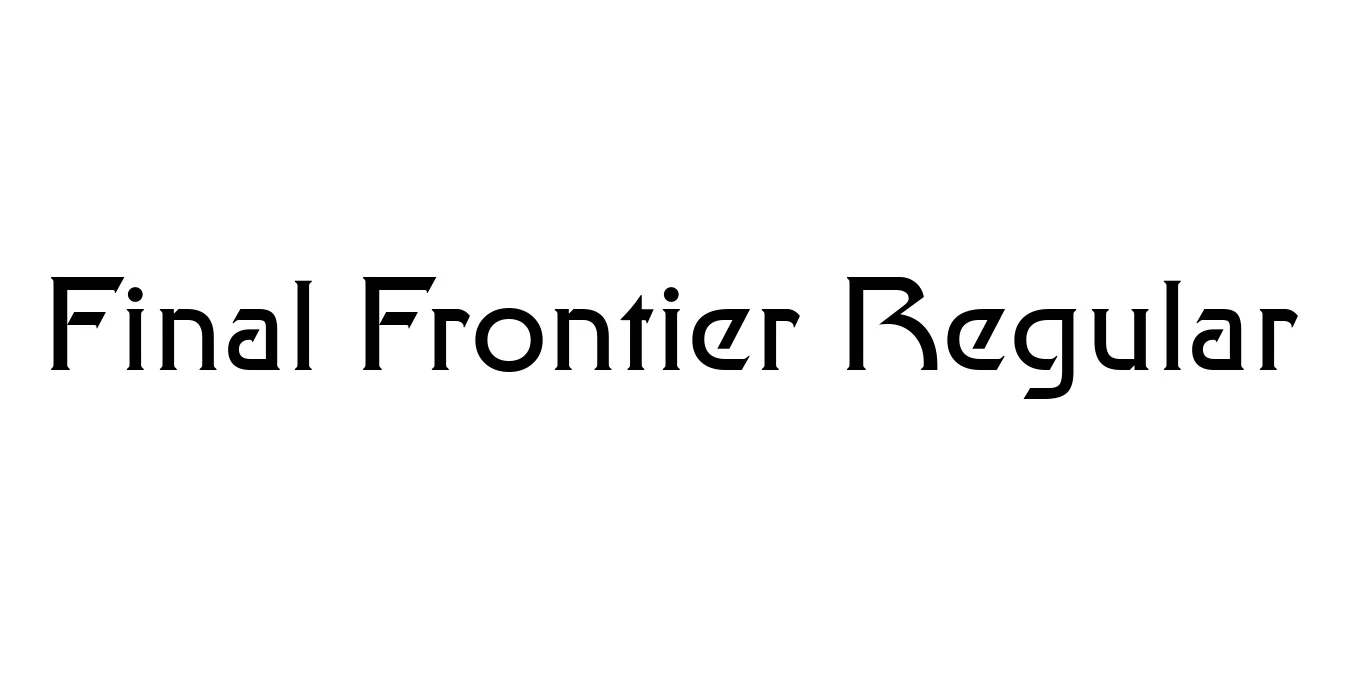
Final Frontier Regular
Designed by Allen R. Walden
Final Frontier is a iconic display typeface heavily inspired by the titling used in the Star Trek franchise, specifically the The Next Generation era. Created by Allen R. Walden, the font captures a distinct futuristic, wide-set aesthetic that immediately evokes themes of space exploration and high-tech engineering. Its sharp angles and consistent stroke weights make it a quintessential choice for science fiction enthusiasts and digital creators looking for a galactic feel.
Since its emergence in the early digital font era, Final Frontier has been a staple for fan-made projects, convention posters, and themed graphics. Because of its bold and geometric nature, it is highly legible in large formats, making it perfect for cinematic titles and gaming interfaces. While primarily associated with 1990s sci-fi, it remains a popular choice for any modern project requiring a futuristic and authoritative presence.
Final Frontier Regular Best Uses
Perfect for bold, eye-catching titles in posters or web banners.
Great for sci-fi themed posts and fan art graphics.
Ideal for tech startups or gaming companies seeking a futuristic identity.
Excellent for UI elements and logos in space-themed video games.